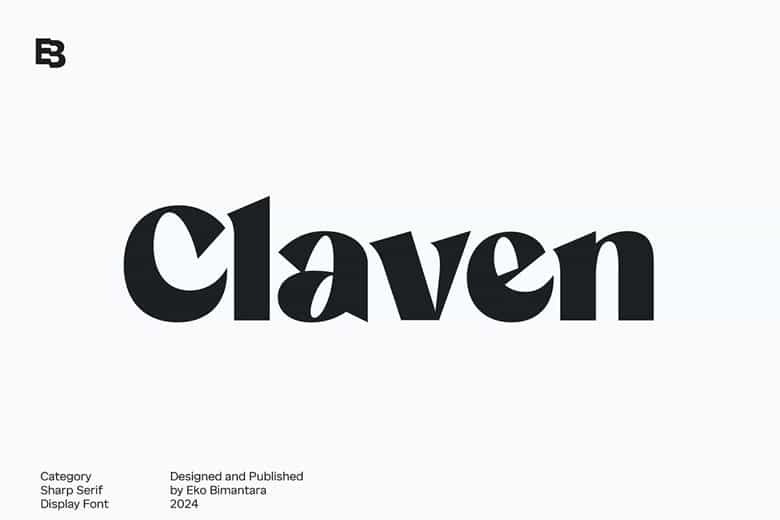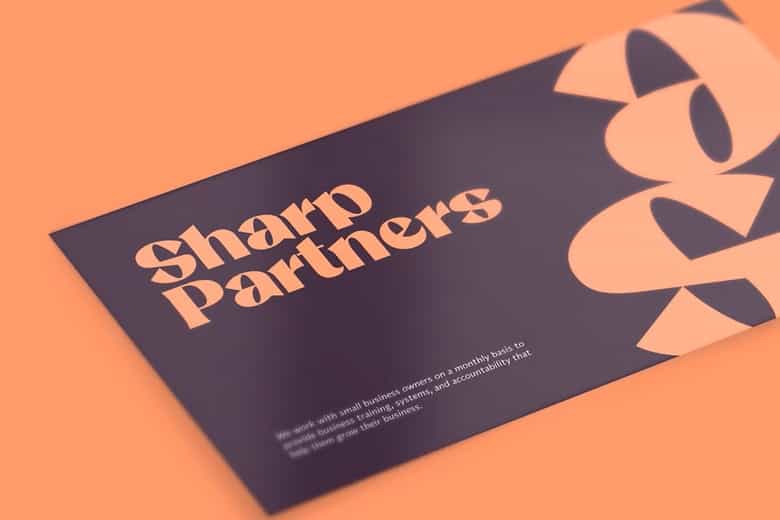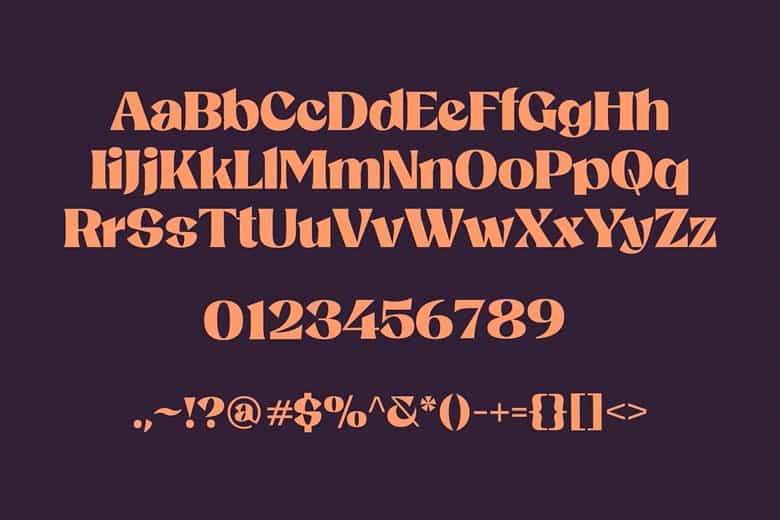
Claven is an extravagant sharp serif display typeface with unique flared and unique character design, large x height with tremendous impact. Its bold and catchy design suits both modern and classic type of projects. Claven is perfect with big-size exhibits and creative designs; though it contains strong branding, titles, product wrappers, posters, and banners.